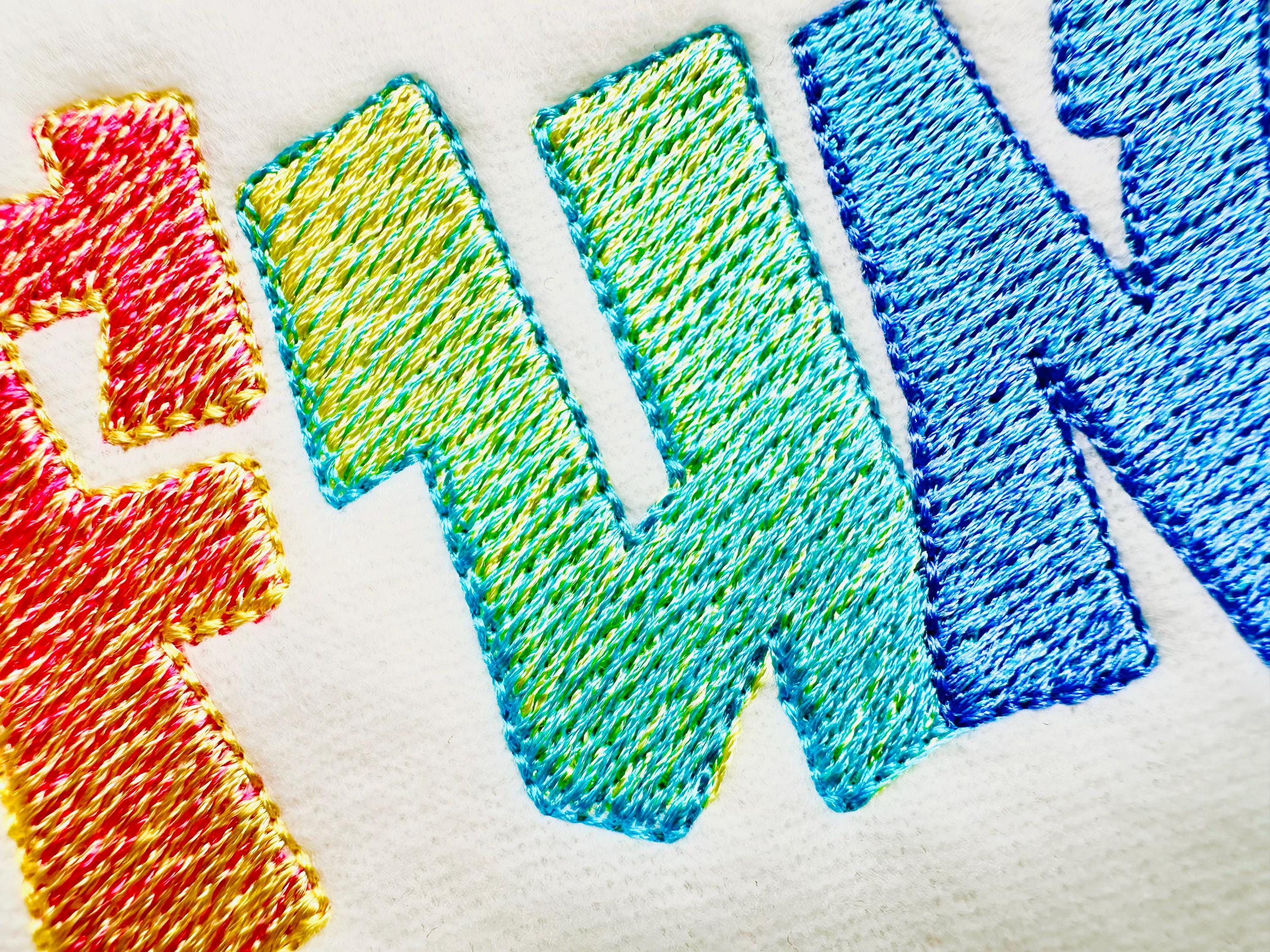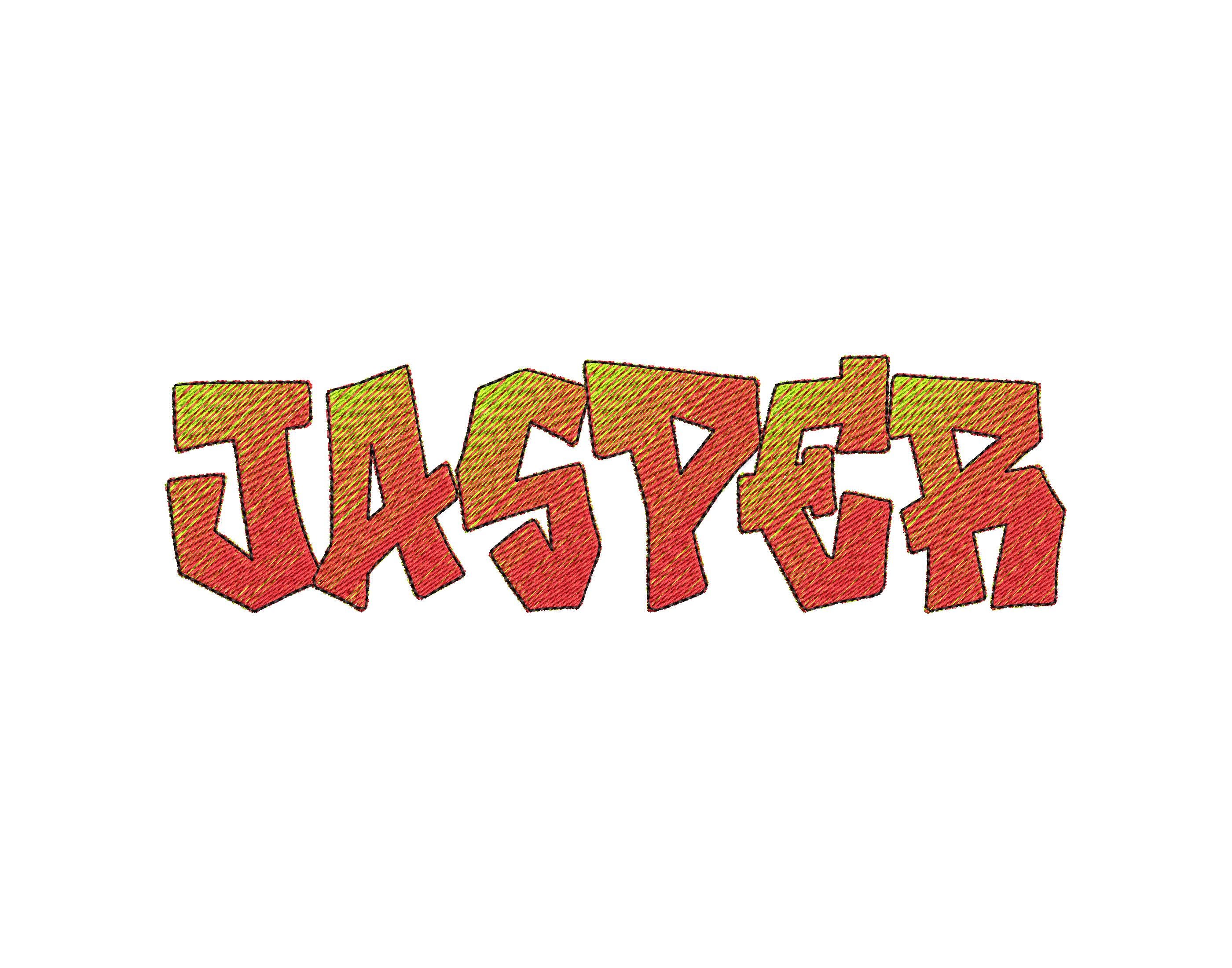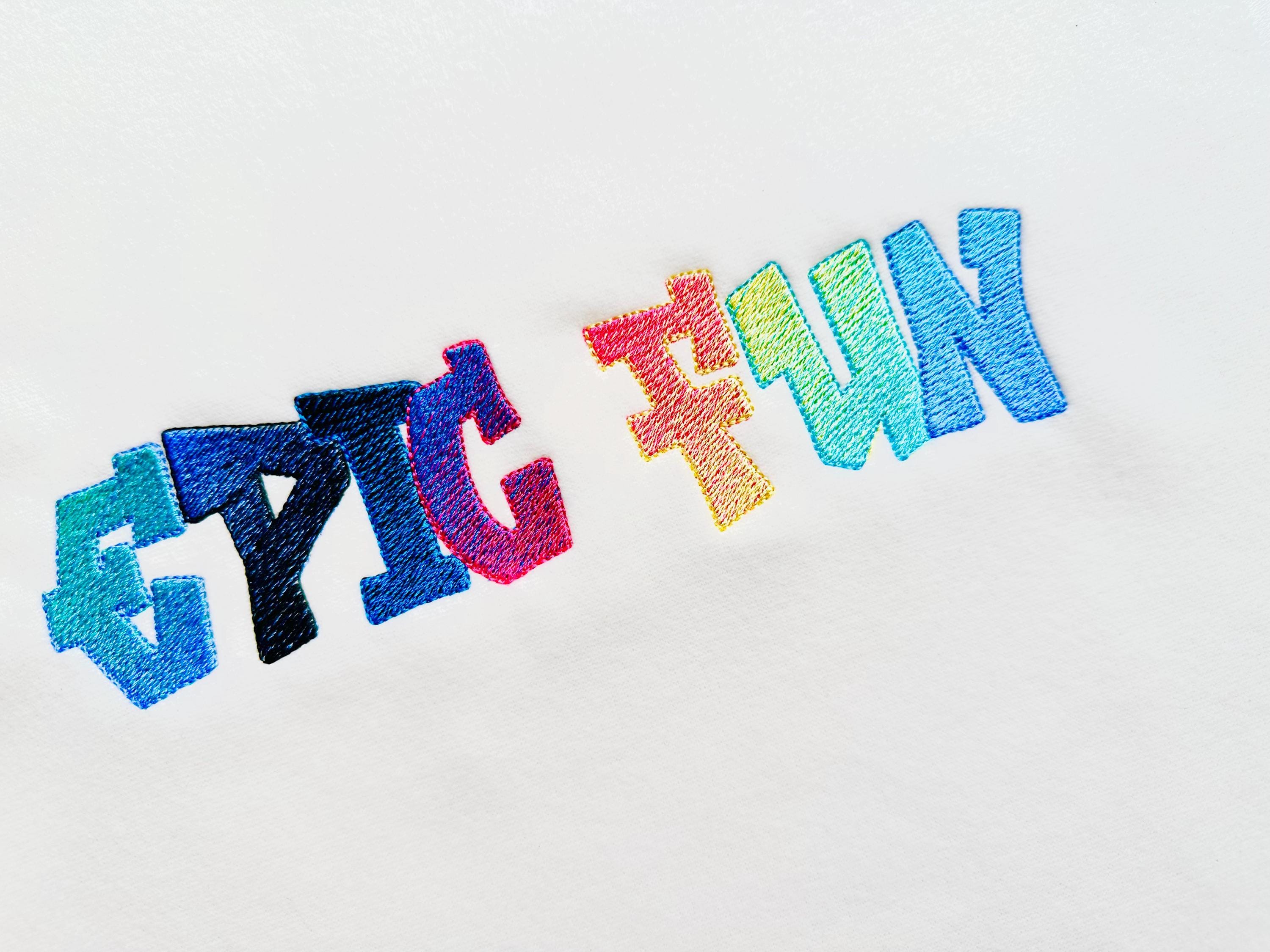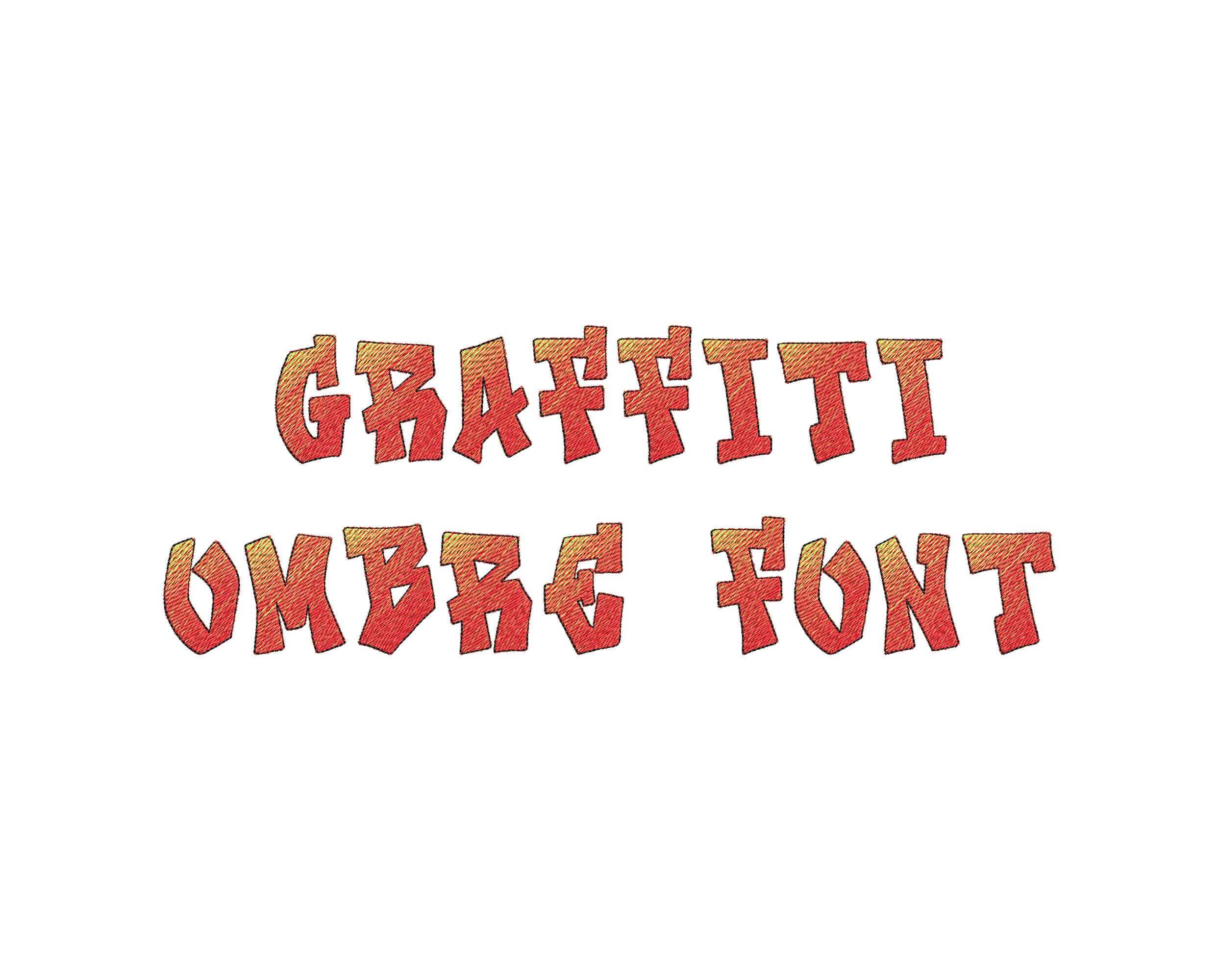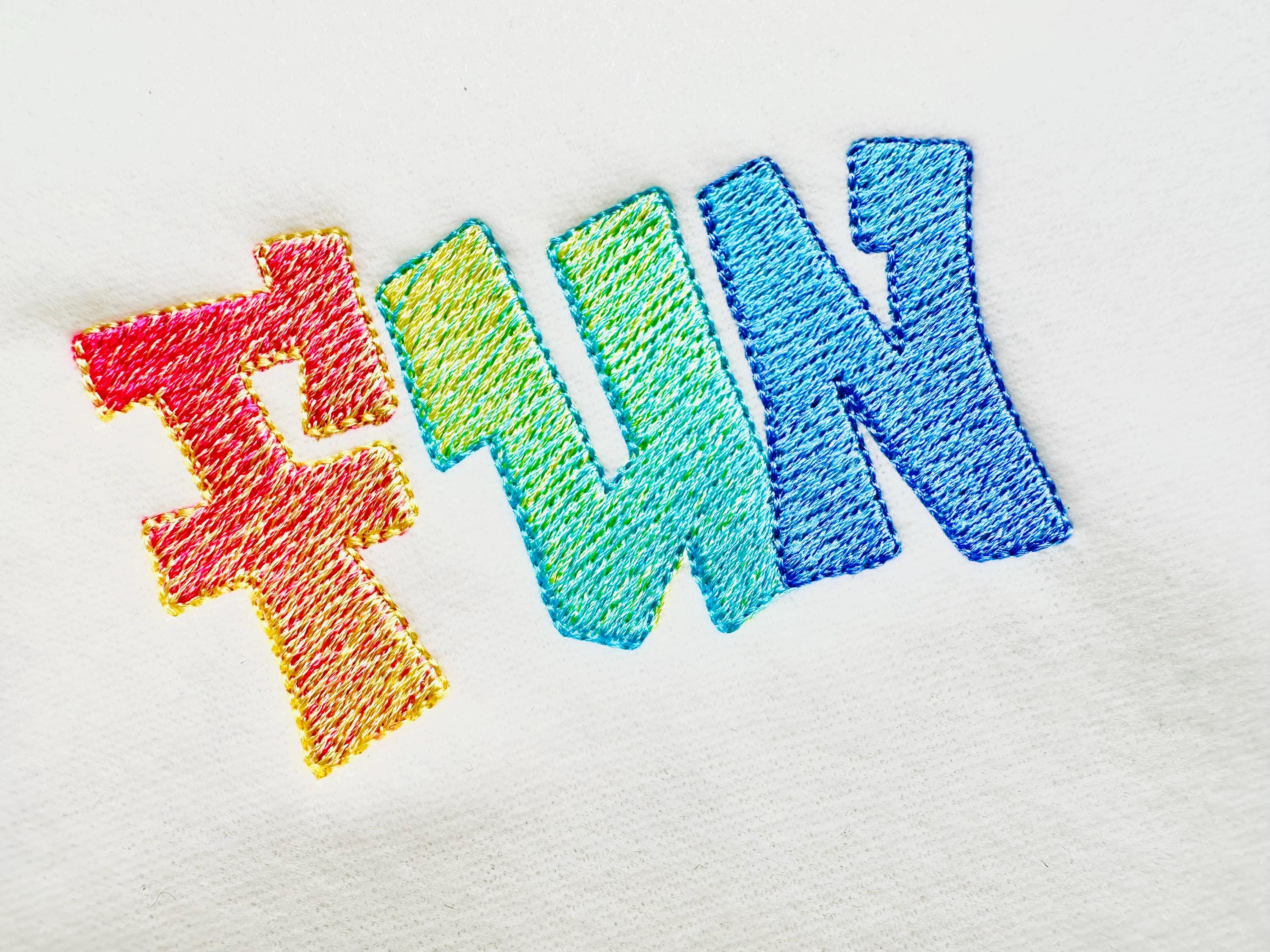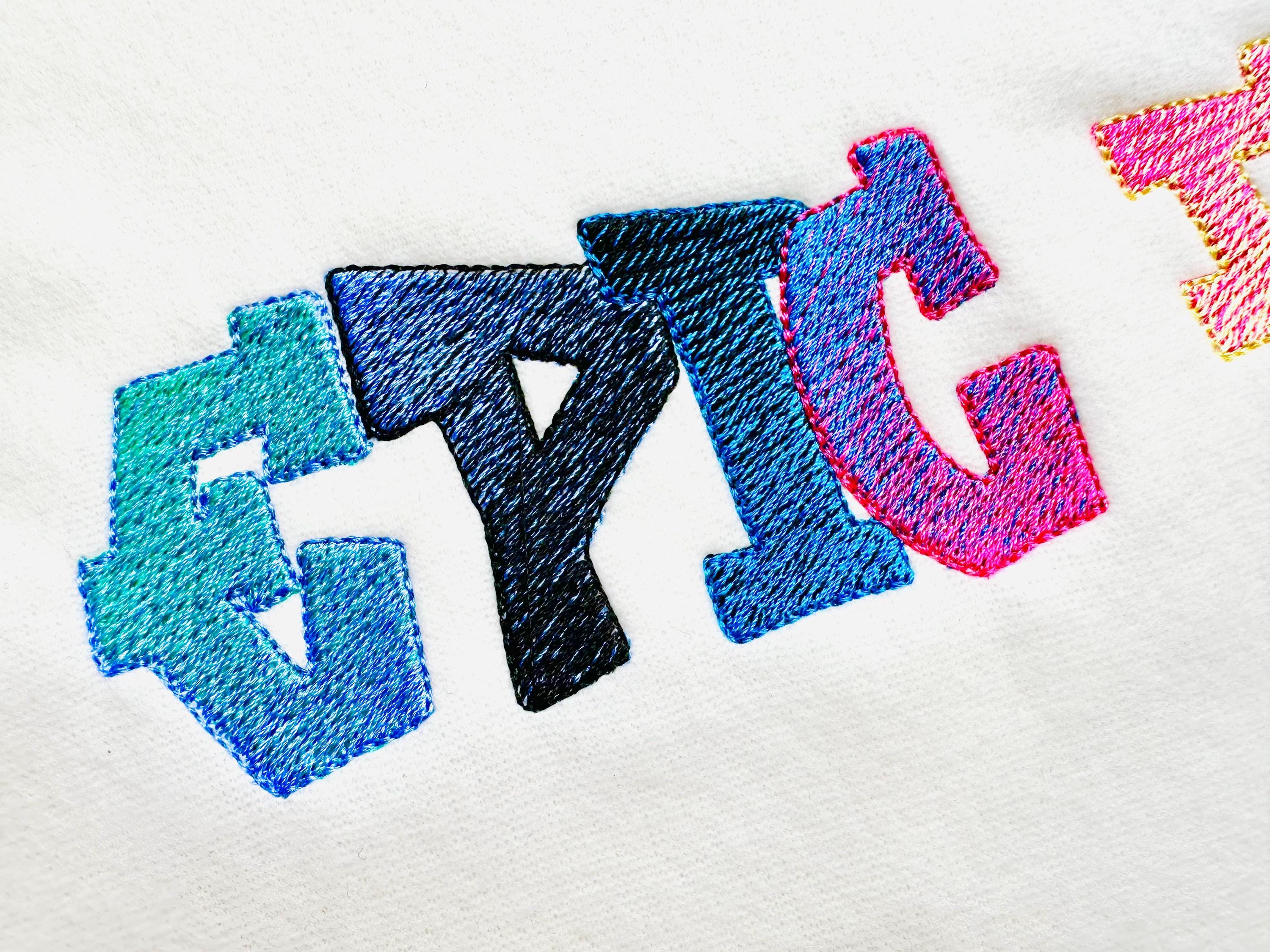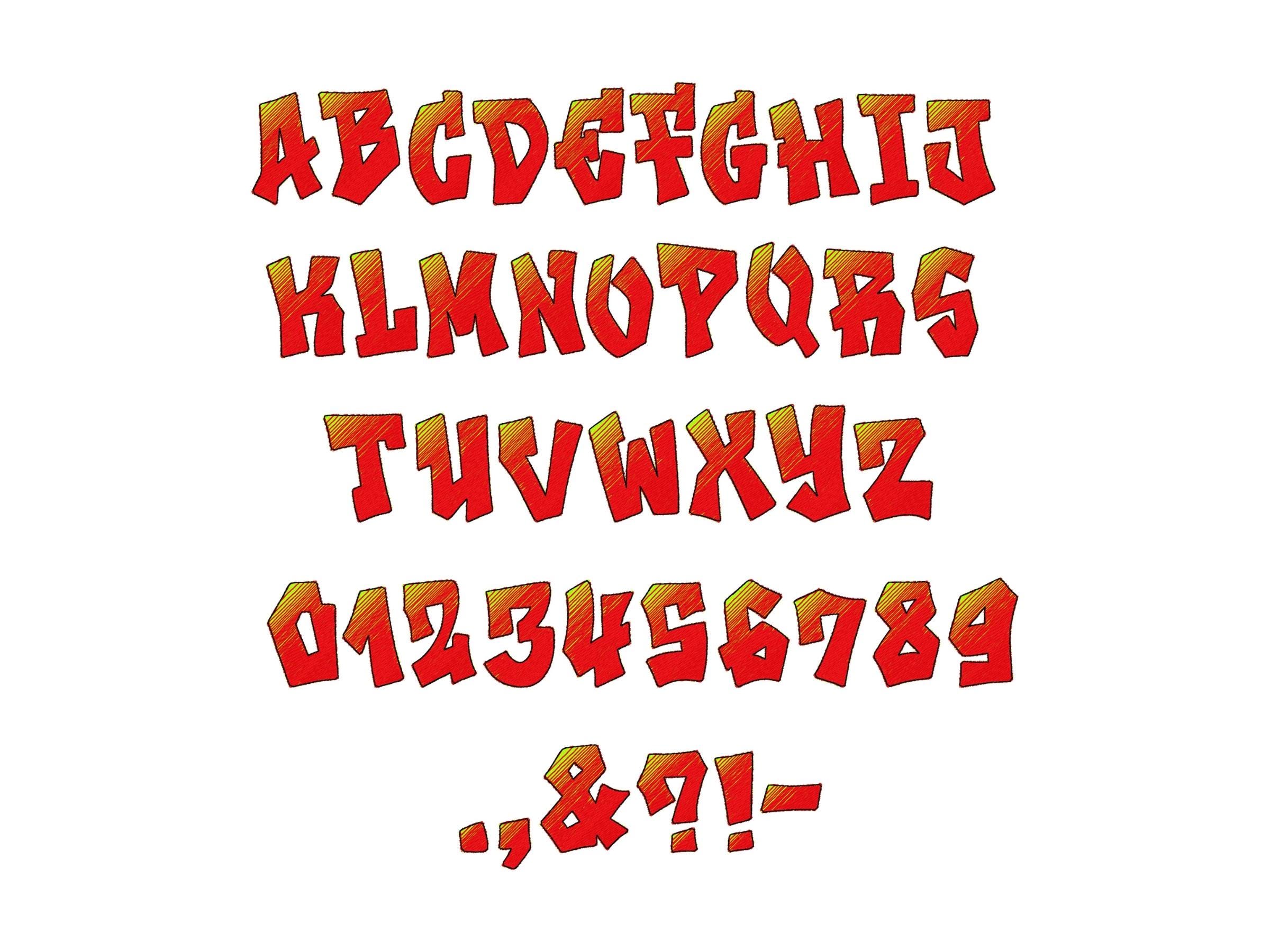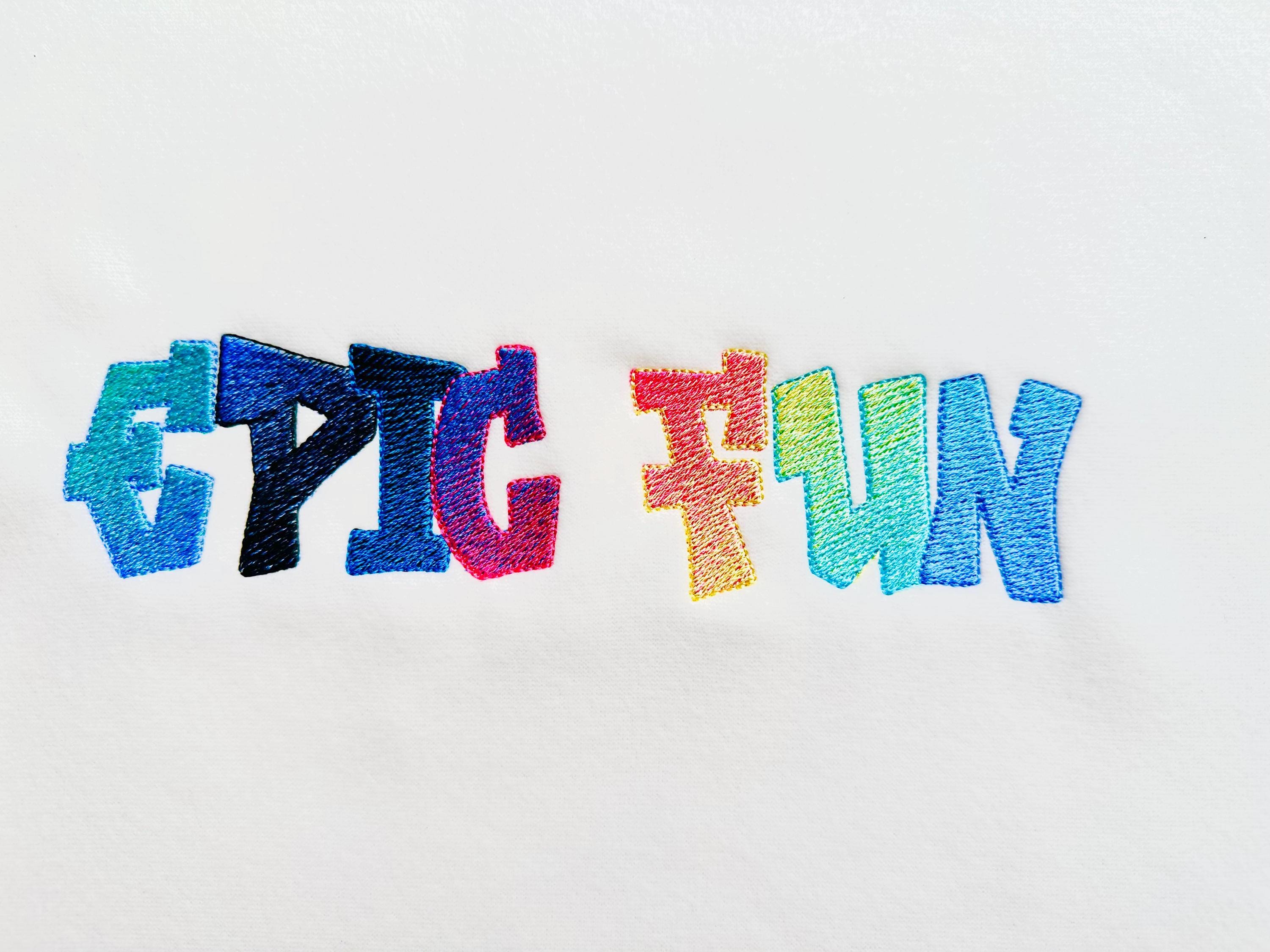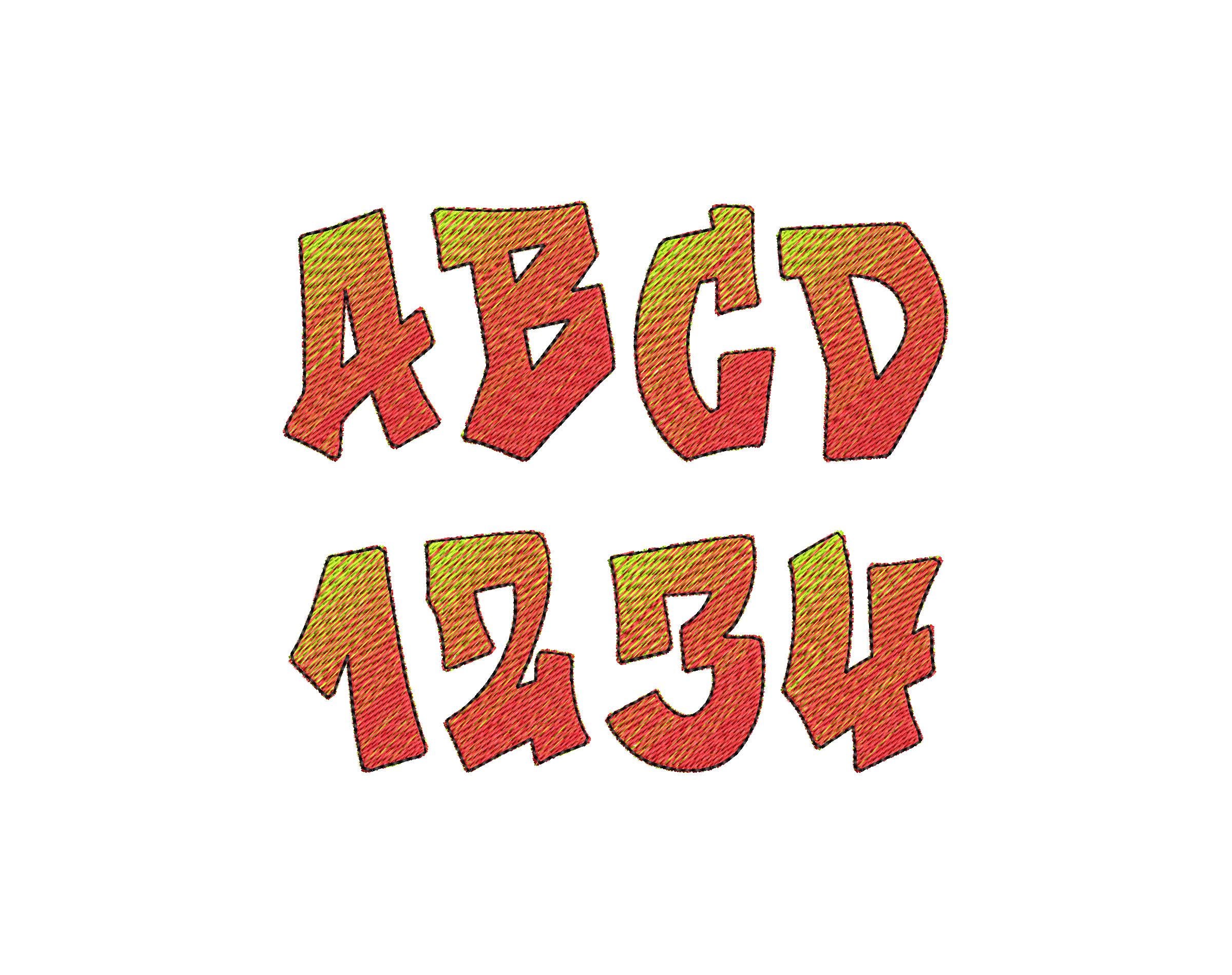
Graffiti street art FONT 2 color alphabet iridescent ombre gradient machine embroidery designs boys Monogram letters sizes 1 up to 3.5 inch
No special thread needed!
This font uses regular solid-color threads (not multicolored), and it looks amazing! Each letter is stitched with two different colors to create a beautiful iridescent effect.
The design itself creates this unique look—one side of the letter is stitched in one color, the other side in a second color, and then it’s finished off with a clean outline. It’s a simple technique that gives stunning results!
Whole alphabet: uppercase letters, numbers, and punctuation.